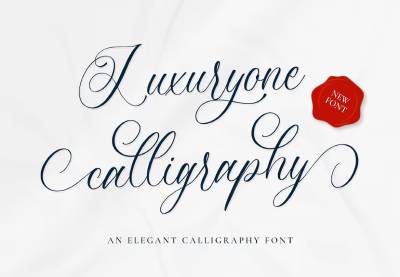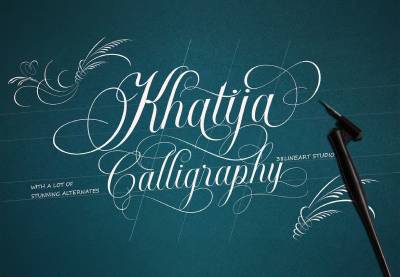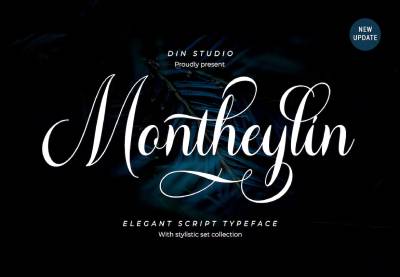
15+ Best Free Calligraphy Fonts (Free Downloads)
Whether you're creating wedding stationery or any other type of high-end design, free calligraphy fonts are a great asset for your creative toolbox. That's why we made this list of the 15+ best free calligraphy fonts, as well as a selection of premium fonts you can find at Envato Elements.
12+ Best Calligraphy Fonts From Envato Elements
1. Lucinda Modern Calligraphy Fonts (OTF)
Look at the elegant swirls and flourishes on Lucinda Modern Calligraphy Fonts. This beautiful, modern calligraphy font is similar to the Amalfi Coast font. You can use it for wedding invitations, letterhead, posters, and more.
2. La Provence Fun Calligraphy Font Download (TTF)
Ah, spring in Provence! Channel the vibes of beautiful blue skies and fields of lavender with this ornate calligraphy lettering font. You get uppercase and lowercase characters, as well as multilingual glyphs. La Provence is a great alternative to calligraphy fonts you can download for free.
3. Inspiration Hand Drawn Modern Calligraphy Fonts (TTF, OTF, WOFF)
How's this for inspiration? Inspiration Hand Drawn Modern Calligraphy Fonts offers plenty of whirls and flourishes to make your text stand out from the crowd. It's perfect for wedding invitations, table cards, quotes, social media banners, and more.
4. Jasmitha Cool Calligraphy Fonts (OTF)
Even some of the best free calligraphy fonts can be hard to read, but Jasmitha Cool Calligraphy Fonts is a clear, legible option. You get the dynamic, flowing script of a calligraphy font in this download, but with a simplicity that makes it ideal for larger amounts of text.
5. Quintessa Fun Calligraphy Fonts (OTF, TTF)
Or try Quintessa Fun Calligraphy Fonts, a hand-lettered calligraphic font with the look of an ink brush. It comes with uppercase and lowercase characters, numerals, and basic punctuation, and would be ideal for logos, invitations, greeting cards, and more.
6. Amelina Script (OTF)
Now we move from thick ink brushstrokes to fine, elegantly drawn lines, just like the Amalfi Coast font. Amelina Script is a beautiful calligraphic typeface that you can use for wedding invitations, signage, or other situations in which you need something special.
7. Emellie English Calligraphy Font Style (OTF, WOFF)
Try Emellie English Calligraphy Font Style if you're looking for a stylish calligraphic typeface with fun swashes. It's perfect for logos, wedding stationery, and more, and it comes with standard Latin characters, uppercase alternates, initial and terminal forms, numbers and symbols, extended Latin characters, and select ligatures. That's a lot of versatility for your next project!
8. Fabulous Calligraphy Script Lettering Font (OTF)
Check out the stylish calligraphic flourishes in this typeface. This could work as an Amalfi Coast font alternative. Fabulous Script would make a wonderful signature, invitation, logo, etc. Use the wide selection of alternates in any program that supports OpenType features.
9. Natalia Script Calligraphy Font (OTF)
The best calligraphy fonts incorporate the mix of thick and thin strokes that's a common characteristic of calligraphy. Natalia Script is a great showcase for this style, so why not download it and try it out?
10. Murchison English Calligraphy Script Font (OTF)
Or try Murchison Script to see another characteristic of calligraphy: those extravagant flourishes around the text. You could spend years learning hand lettering to create a popular calligraphy font style like this—or you could just download Murchison Script!
11. Neermias Modern Calligraphy Font (OTF, TTF)
Here's a simple and elegant calligraphic font to try. This Amalfi Coast font alternative is perfect for fashion brands, interior design, and other similar businesses. It comes with uppercase and lowercase characters, numerals, punctuation, and symbols.
12. Revallyna Calligraphy Font Style (OTF, TTF)
Try Revallyna Calligraphy Font Style with its decorative characters and bouncing baseline. With 320 glyphs and a wide selection of stylistic sets, contextual alternates, and ligatures, you'll have all the options you need to create one-of-a-kind titles and text.
13. Kexman Cool Calligraphy Fonts (OTF)
I'm not sure which looks better: the font or the chocolate muffin. Either way, Kexman Cool Calligraphy Fonts is a great option if you're looking for calligraphy font downloads with plenty of ligatures, alternates, and swashes to help you sculpt the perfect text.
14. Toscana Fun Calligraphy Fonts (TTF)
We visited Provence earlier, so let's drop in on Tuscany now. Toscana Fun Calligraphy Fonts is a handmade calligraphic typeface that includes uppercase and lowercase characters, with the decorative alternates you've come to expect by now from these premium calligraphy fonts.